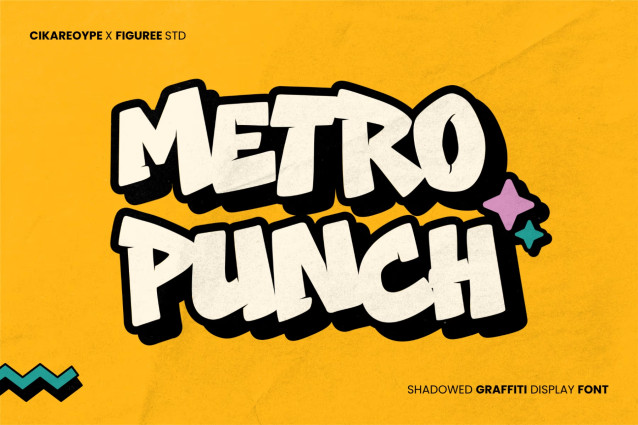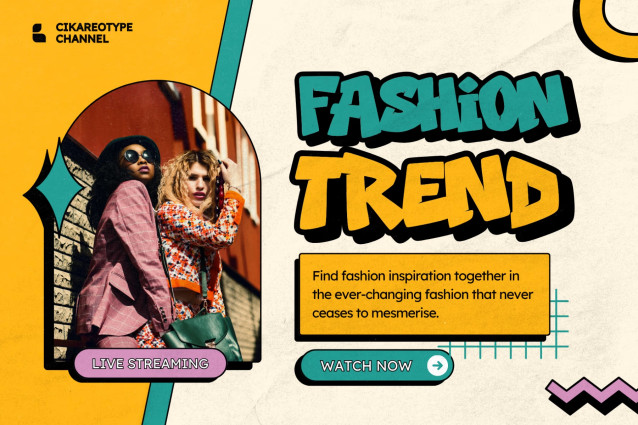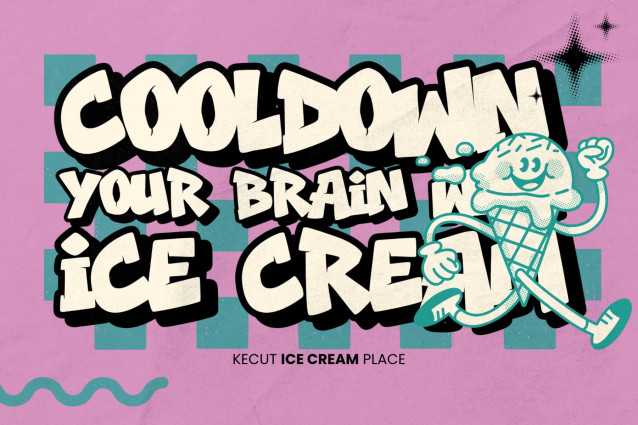
Metro Punch Font
Metro Punch blends retro graffiti energy with bold shadowed lettering for posters, streetwear, music artwork, merchandise, branding, and urban graphics.